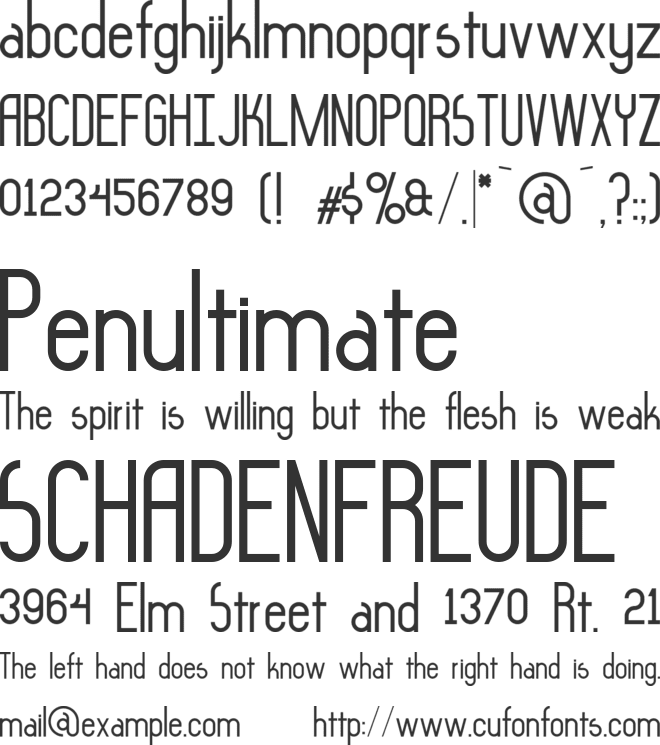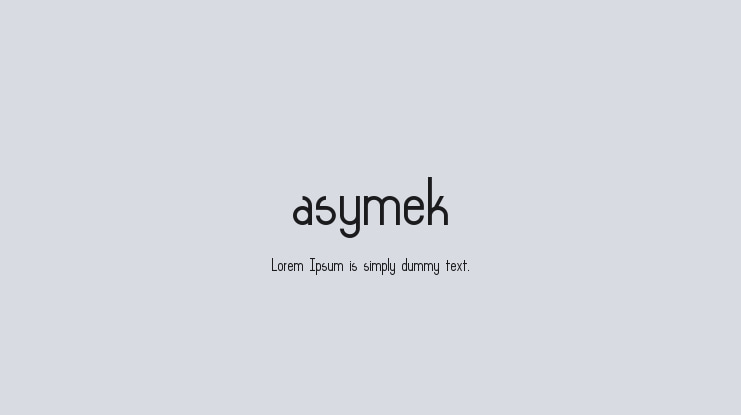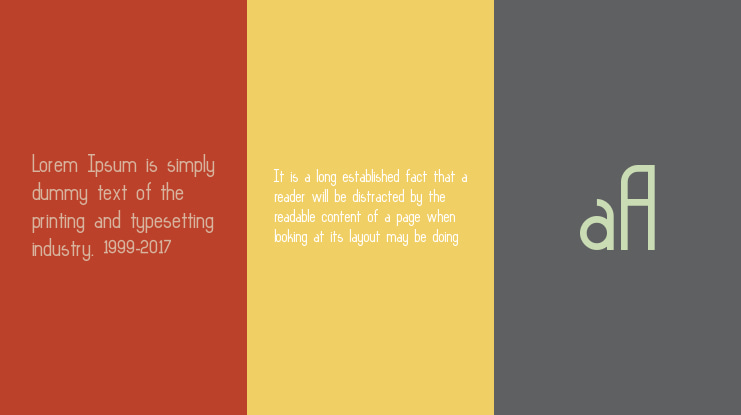
asymek Font
Nick Polifroni
Woke up this morning, with a whole mess of free time. Got this one finished up and ready to go. I'm not 100% with the numbers yet, and some of the kerning is a little weak, without ligatures (it's only a TrueType version anyway.) Once again we've got another work in progress. I just wanted to see how people responded to my new sans serif fonts. Let me know if you have any major issues (.) Some of the Euro characters could be way off in this introductory version.